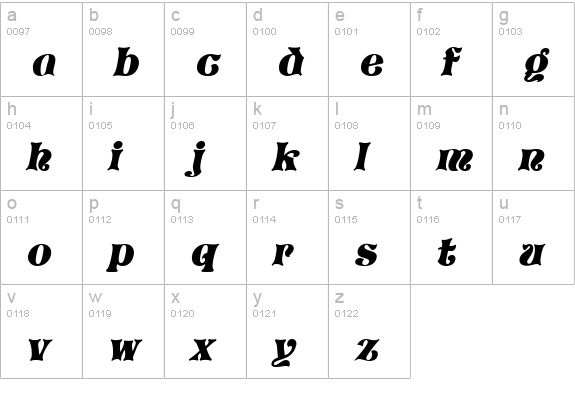
Vostrey Italic Font Details
Vostrey Italic is a distinctive, italic variant in the Vostrey typeface family \xE2\x80\x94 well suited to design and typography projects.
Vostrey Italic is a stunning font that effortlessly combines elegance and modernity. Its sleek and graceful curves give any design a touch of sophistication, making it perfect for both professional and creative projects. This font's unique italic style adds a dynamic and contemporary edge, making it stand out from the crowd. Whether used for headlines, logos, or body text, Vostrey Italic captivates the reader's attention with its unparalleled charm. What makes Vostrey Italic even more appealing is the fact that it is freely available to download at FontsMarket.com. This means that designers and enthusiasts alike can enjoy the beauty of this font without any cost. With just a few clicks, Vostrey Italic can be in your font library, ready to enhance your next masterpiece. So why wait? Take advantage of this remarkable opportunity and bring a touch of sophistication to your designs with Vostrey Italic. Download it for free at FontsMarket.com and let your creativity soar to new heights.